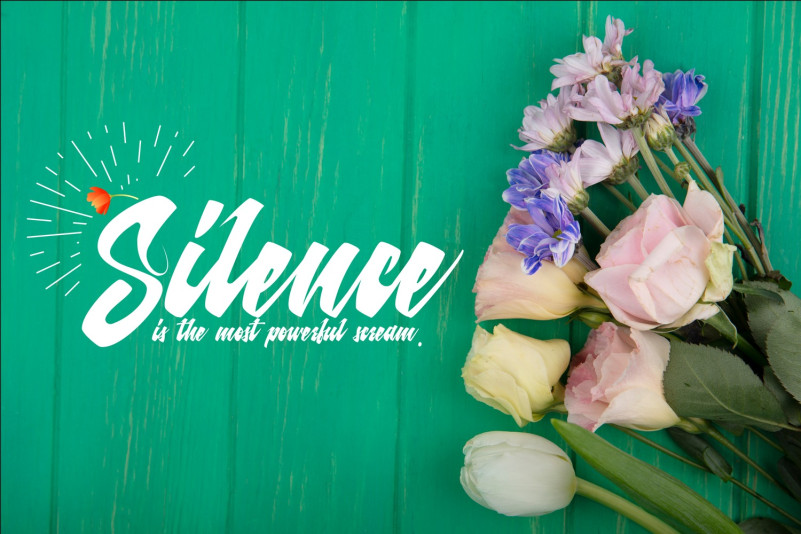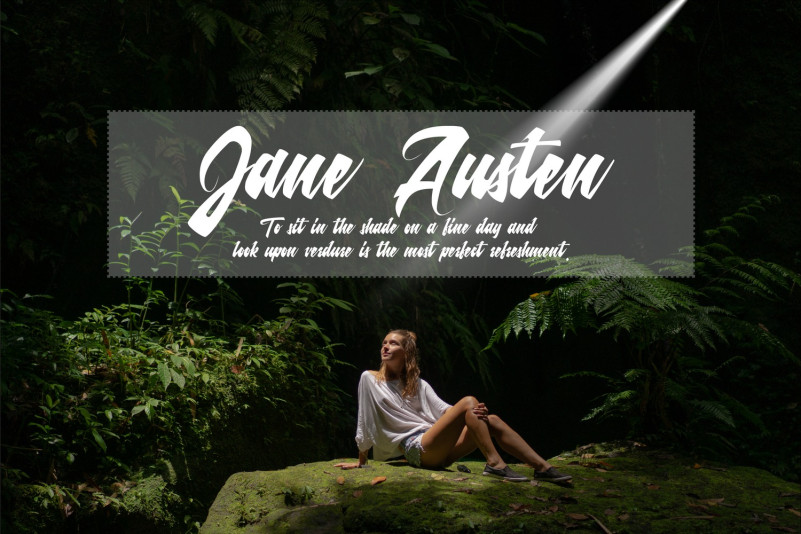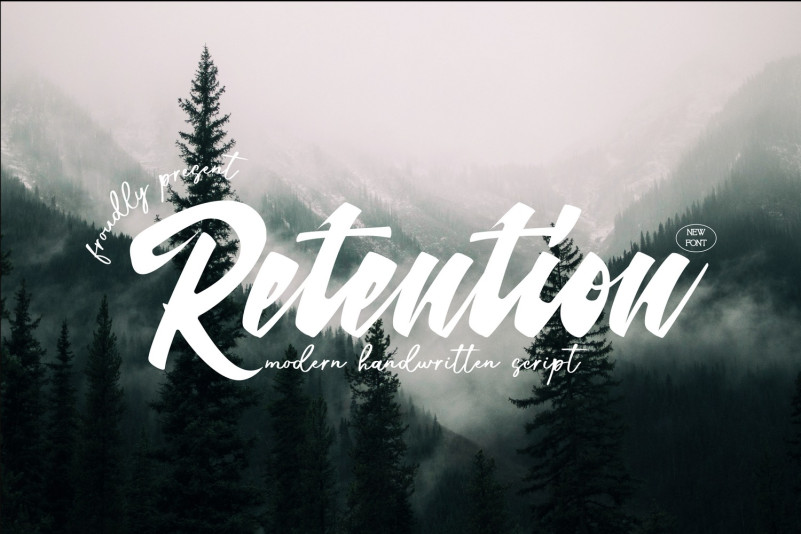
Retention Font
Retention Modern Script Font is a script typeface with hand-drawn strokes and light-bold lines that make this font look beautiful and modern. It’s highly recommended for you who want to make some designs with a realistic signature style. This font will work for invitation design, wedding design, fashion design, advertising design, posters, packaging, book cover title, quote, social media post, etc. Open your Opentype features using the script font to use the ligatures, alternates, and swashes.